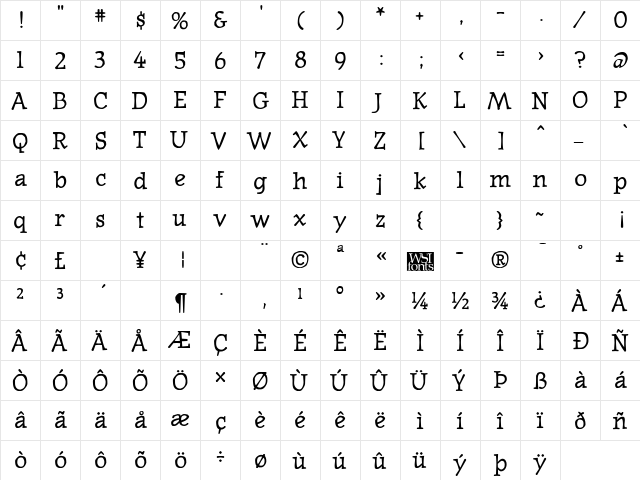
OldNews Bold
Design Context for OldNews Typeface
OldNews takes a measured approach to typography — its balanced proportions and neutral character make it a reliable workhorse for both digital and print work. Its bold stroke weight gives it real presence on the page.